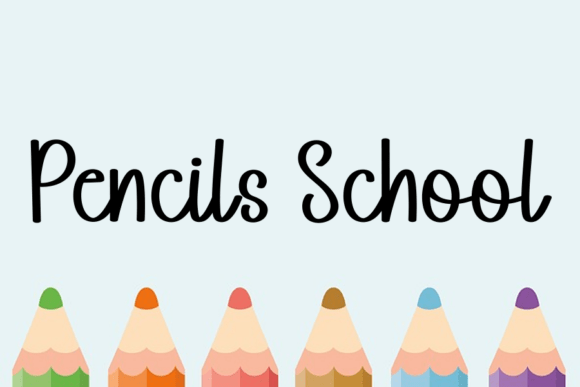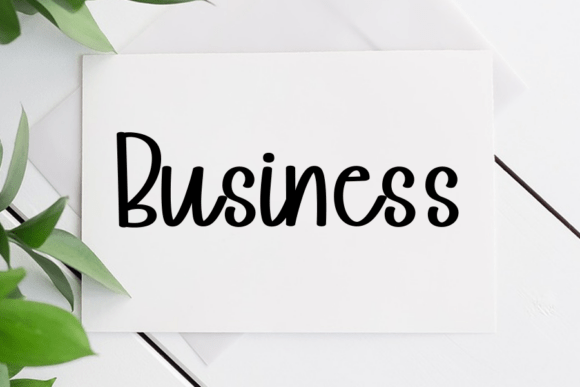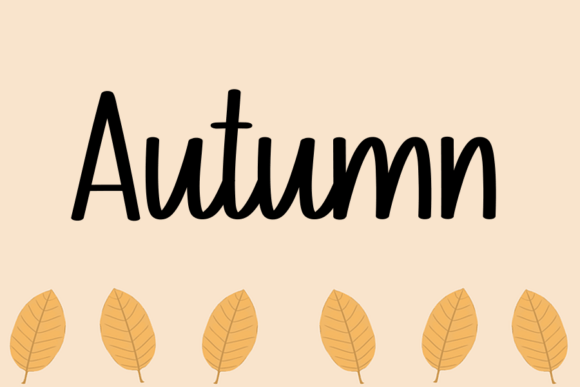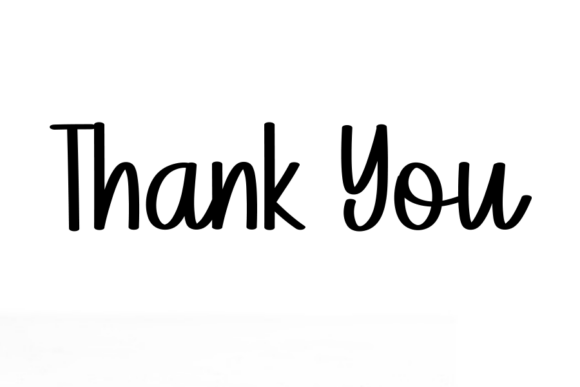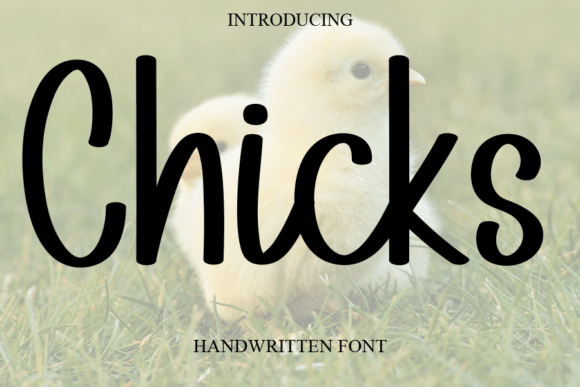
Introducing Chicks Font: The Sweet and Cursive Handwritten Font for Your Design Needs
Are you looking for a font that can add a touch of elegance and whimsy to your designs? Look no further than Chicks Font, a sweet and cursive handwritten font that is perfect for a variety of design projects. With its gentle and flowing curves, Chicks Font is sure to bring a joyful and romantic touch to your work.
What Makes Chicks Font Special?
Chicks Font is a unique and versatile font that can be used for a wide range of design ideas. Its cursive and handwritten style gives it a personal and friendly feel, making it perfect for projects that require a touch of warmth and personality. Whether you’re working on a branding project, a wedding invitation, or a fashion lookbook, Chicks Font is sure to impress.
One of the standout features of Chicks Font is its ability to add a touch of elegance and sophistication to your designs. Despite its casual and handwritten style, Chicks Font has a refined and polished feel that makes it perfect for high-end designs. At the same time, it’s still casual and approachable, making it suitable for a wide range of projects and audiences.
So, what types of design projects is Chicks Font best suited for? The answer is: many! Here are just a few ideas to get you started:
- Branding: Use Chicks Font to create a unique and memorable brand identity that stands out from the crowd.
- Wedding Design: Add a touch of romance and whimsy to your wedding invitations, programs, and other stationery with Chicks Font.
- Fashion: Use Chicks Font to create stunning fashion lookbooks, marketing materials, and social media graphics.
- Greeting Cards: Create beautiful and heartfelt greeting cards for special occasions like birthdays, holidays, and anniversaries.
- Marketing Promotion: Use Chicks Font to add a touch of elegance and sophistication to your marketing materials, such as brochures, flyers, and posters.
Why Choose Chicks Font?
So, why should you choose Chicks Font for your design projects? Here are just a few reasons:
- Unique and Versatile: Chicks Font is a one-of-a-kind font that can be used for a wide range of design projects.
- Elegant and Whimsical: Chicks Font has a refined and polished feel that’s perfect for high-end designs, while still being casual and approachable.
- Easy to Read: Chicks Font is clear and easy to read, making it perfect for body text and other long-form content.
- High-Quality: Chicks Font is a high-quality font that’s designed to deliver exceptional results.
How to Use Chicks Font
- Use it for Headings and Titles: Chicks Font is perfect for headings and titles, where its elegant and cursive style can really shine.
In conclusion, Chicks Font is a sweet and cursive handwritten font that’s perfect for a wide range of design projects. With its elegant and whimsical style, Chicks Font is sure to bring a touch of joy and romance to your work. So why wait? Try Chicks Font today and see the difference it can make!